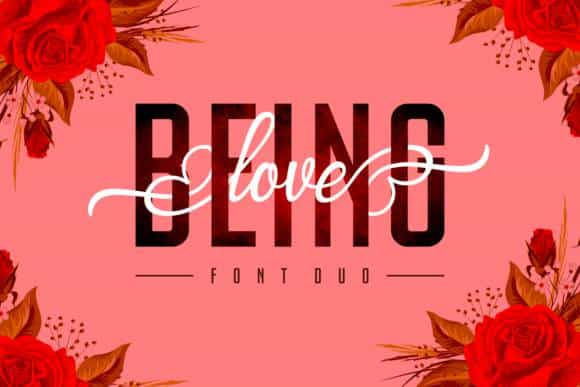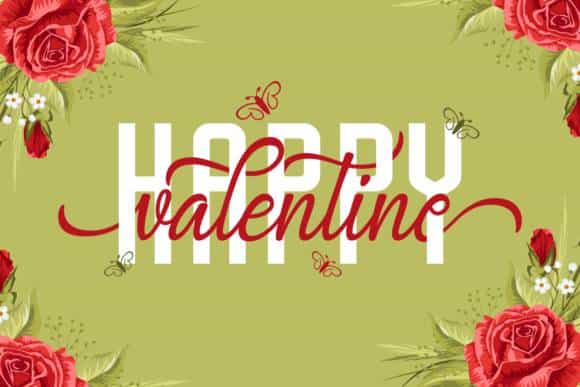
The font you need is Being Love Font Duo. Love Love Duo Font is a special font duo. It encompasses a sumptuous script with a vast range of swashes, and a stunning sans sibling. Both styles blend together very well and have an ideal readability. Many applications also behave in this way. Even personal branding & wedding invitations up to advertising – everything could use this set of signature fonts.